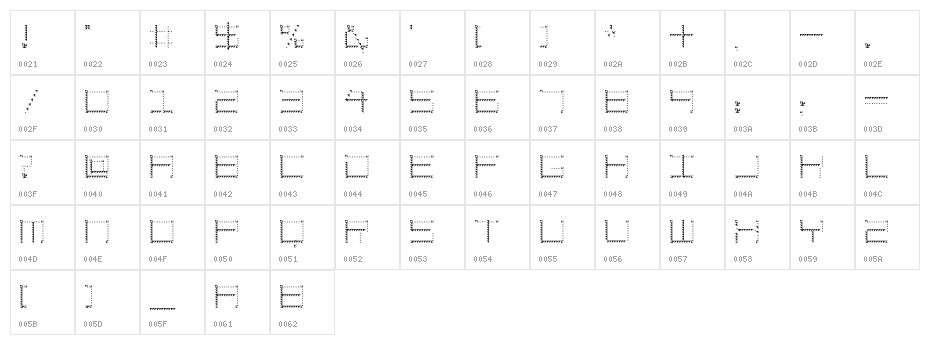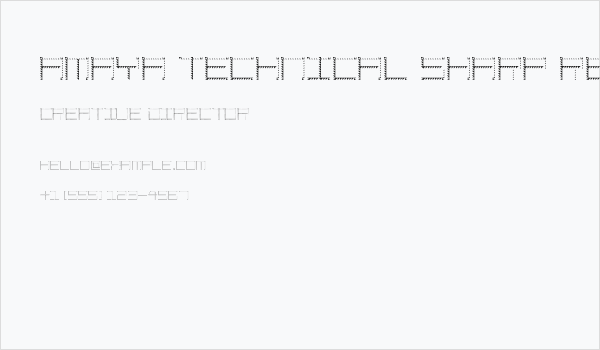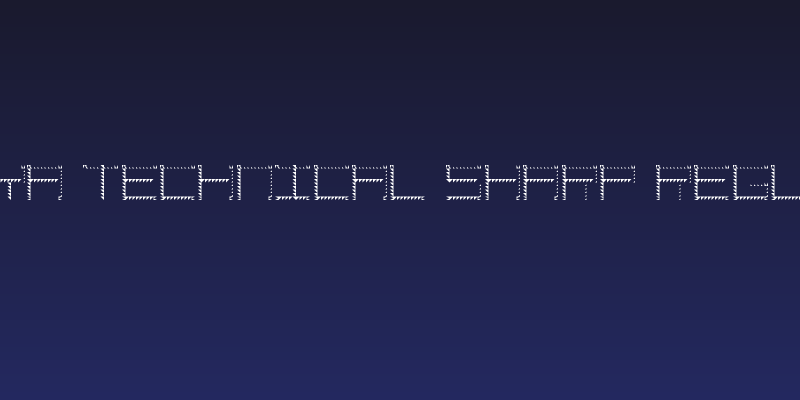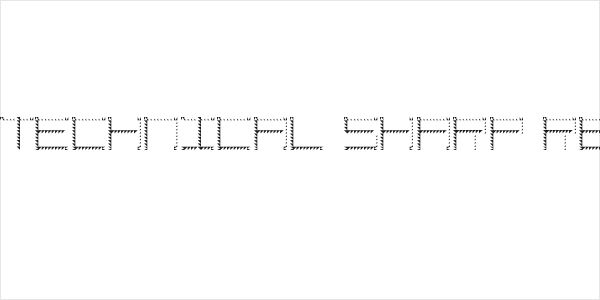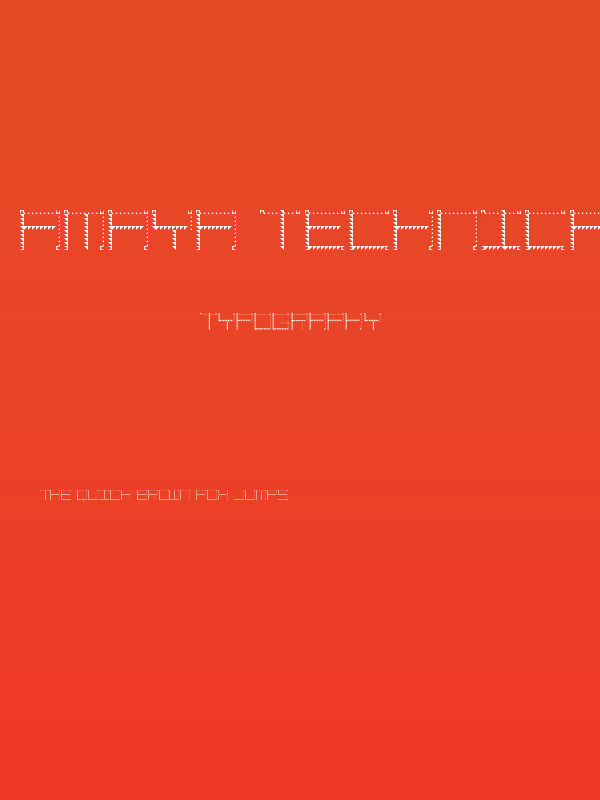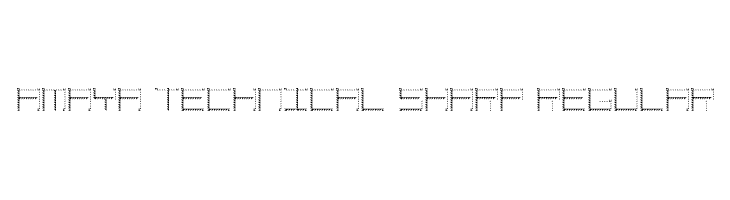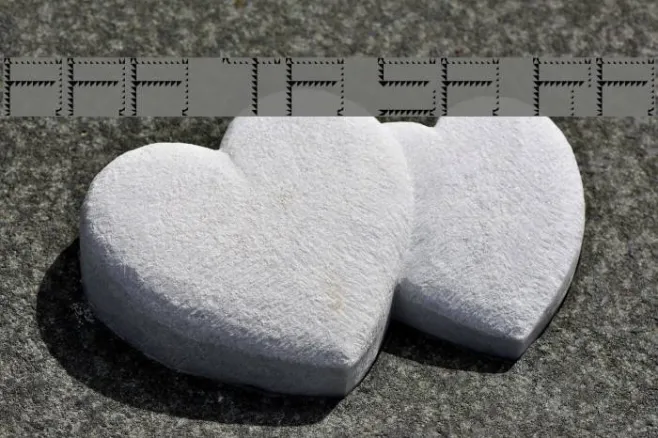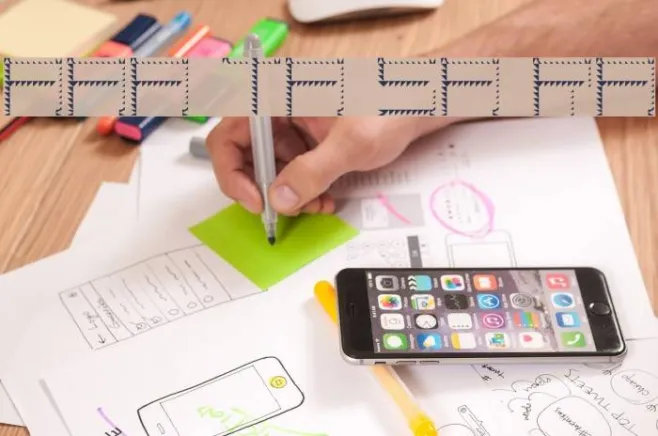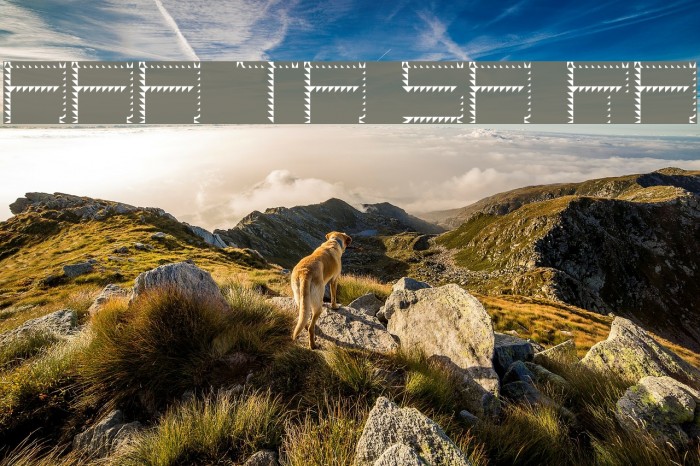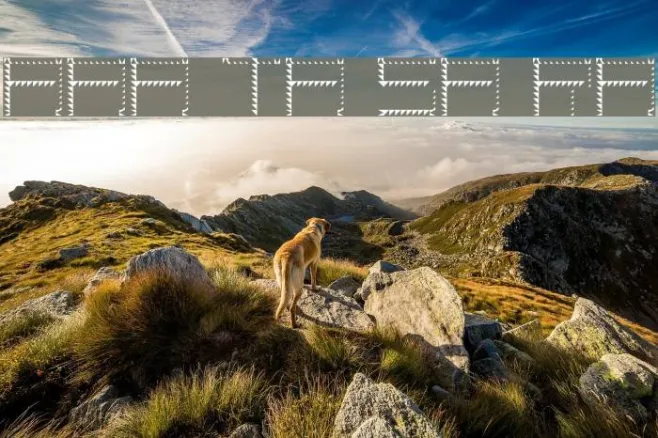
Amaya Technical Sharp Regular Font
Amaya Technical Sharp Regular Description
This font features a unique, technical design with sharp, angular edges and a futuristic aesthetic. Each character is constructed with a series of diagonal lines and geometric shapes, giving it a mechanical and digital feel. The uppercase and lowercase letters maintain a consistent style, with a uniform height and width that enhances readability. The numbers and special characters follow the same design principles, ensuring a cohesive look across all elements. This font's distinct appearance makes it ideal for projects that require a modern and innovative touch.
| Proposed Projects | Ideal for technology branding, digital interfaces, video game design, and sci-fi themed projects. |